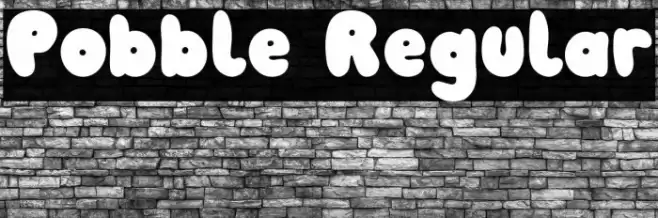
Pobble Regular Font
Pobble Regular Description
This font features a playful and bold design, characterized by its rounded and bubbly letterforms. Each character is crafted with a consistent thickness, giving it a cohesive and uniform appearance. The font exudes a sense of fun and whimsy, making it ideal for projects that aim to capture attention and convey a lighthearted tone. The uppercase and lowercase letters maintain a consistent style, with the lowercase letters slightly smaller but equally bold. The numerals and special characters follow the same design principles, ensuring a harmonious look across all text elements.
A playful, bold font with rounded, bubbly letterforms from Cartoon fonts.
- Proposed Projects: Ideal for children's books, playful branding, party invitations, and creative posters.
- Overall Style: Playful